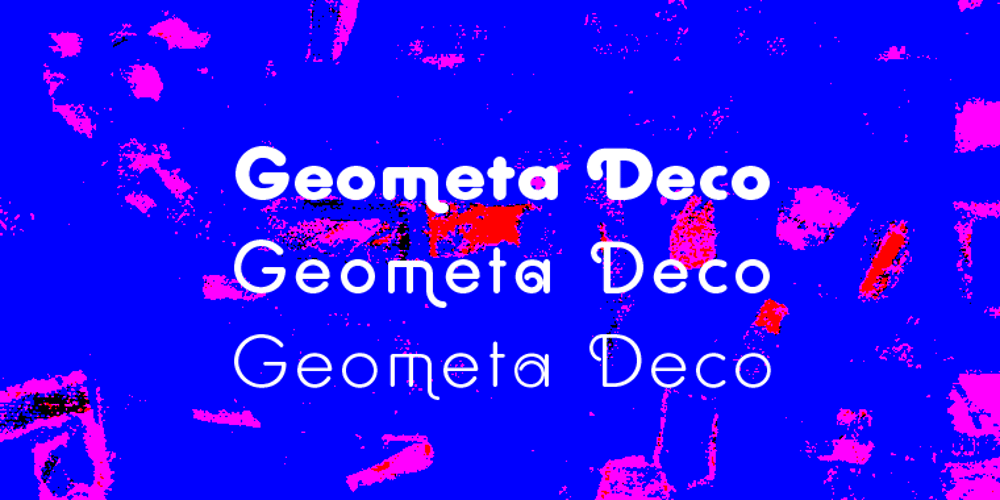
Geometa Rounded Deco
Geometa Rounded Deco font
Geometa Rounded Deco Font Family was designed by Gert Wiescher and published by Wiescher Design. Geometa Rounded Deco contains 3 styles and family package options. Geometa is based on Paul Renners Futura Classic, the one that he designed before he had to soften it to make it more appealing to the broad public. I thought the normal rounded fonts needed a decorative sister. Here they are! Your type-designer for decorative solutions, Gert Wiescher